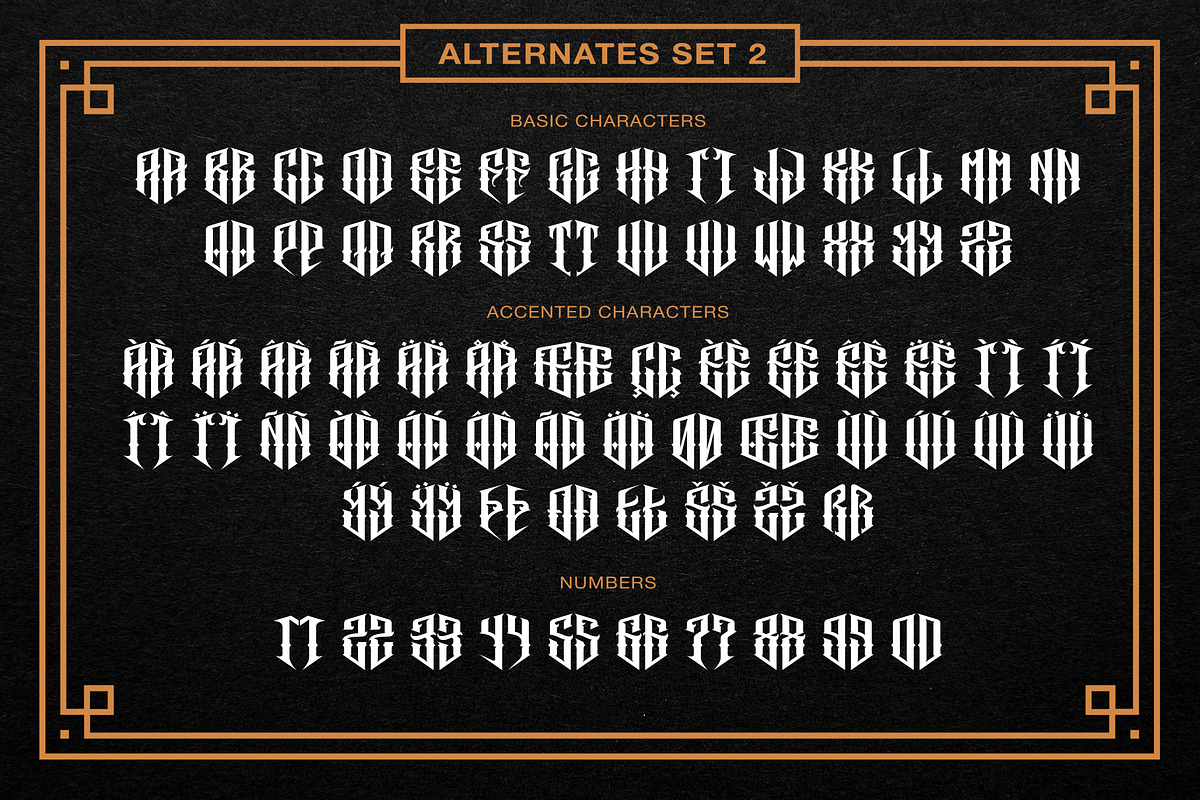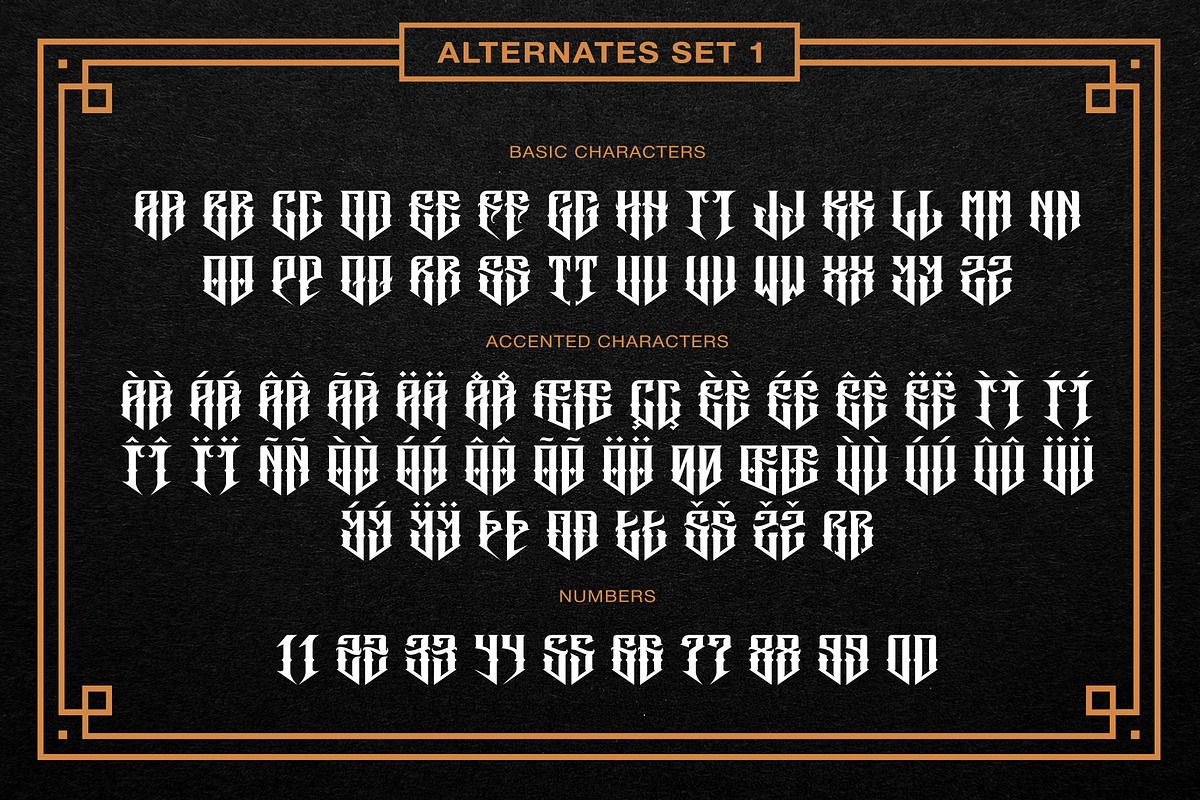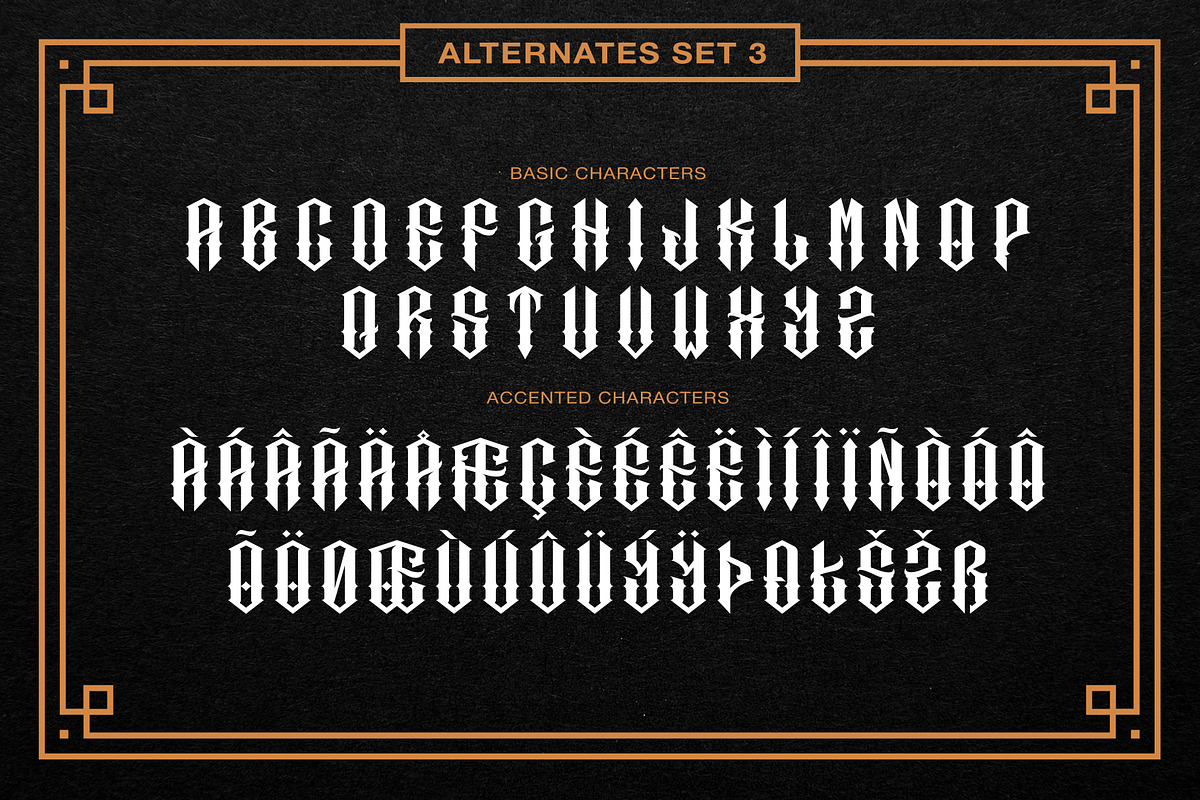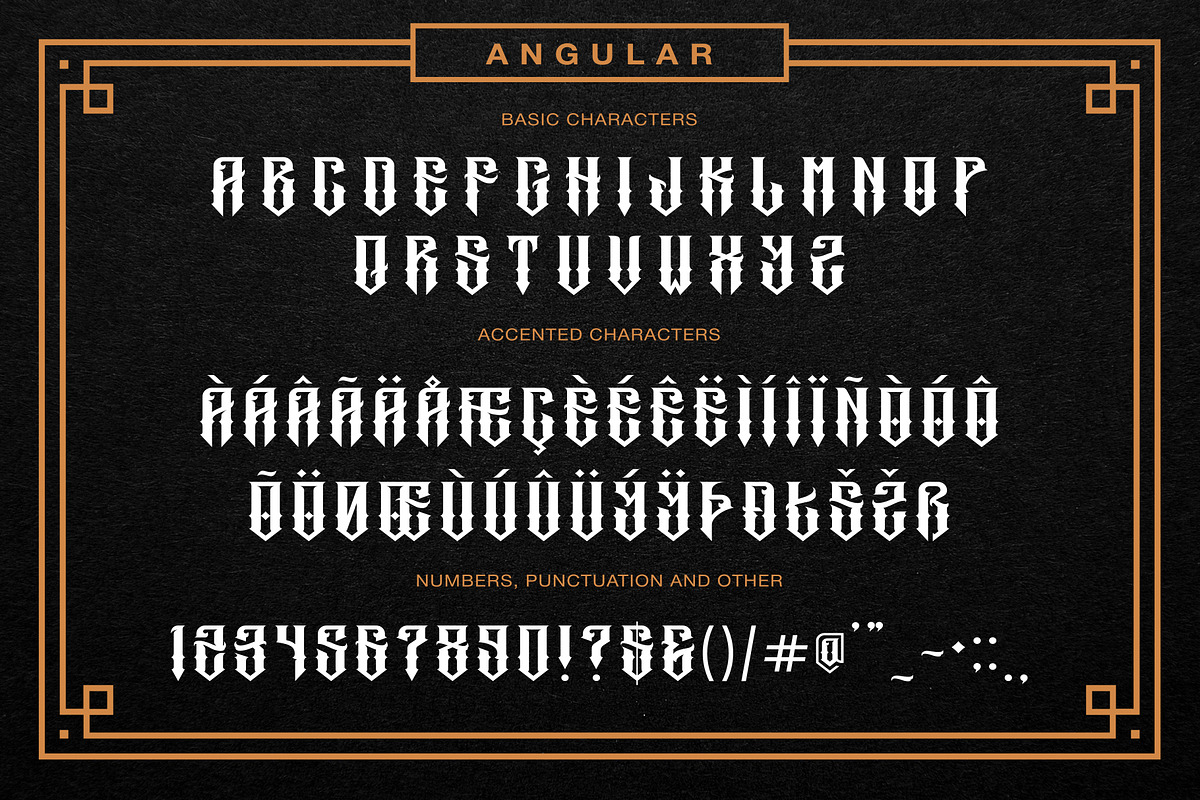
Sword is a display font family with opentype features, inspired by tattoo, biker culture and hard rock music. It works well with normal size text, but looks better for large displays and short words. Perfect for for many creative products such as logos, tattoo design, t-shirt prints, street wear, headlines and etc.
The font includes a full set of character A-Z, as well as multi-lingual support , currency figures, numerals, and punctuation. Each letter have 5 alternate glyphs for lowercase, 4 alternate glyphs for uppercase and 4 alternates for each number.
Sword Rectangular Shadow
Stylistic Alternates (5 alternate glyphs for lowercase, 4 alternate glyphs for uppercase and 4 alternates for each number.)
- The font includes a full set of character A-Z, as well as multi-lingual support , currency figures, numerals, and punctuation.
- HKF SWORD Rectangular
- HKF SWORD Angular
- HKF SWORD Shadow Angular
- HKF SWORD Shadow Rectangular